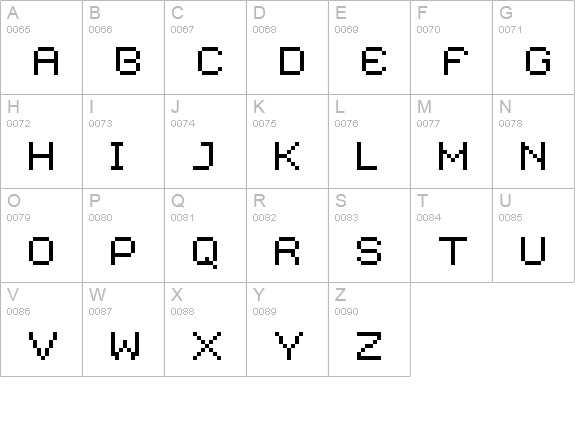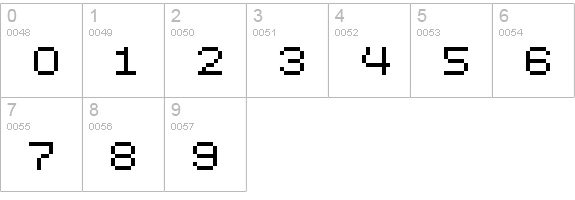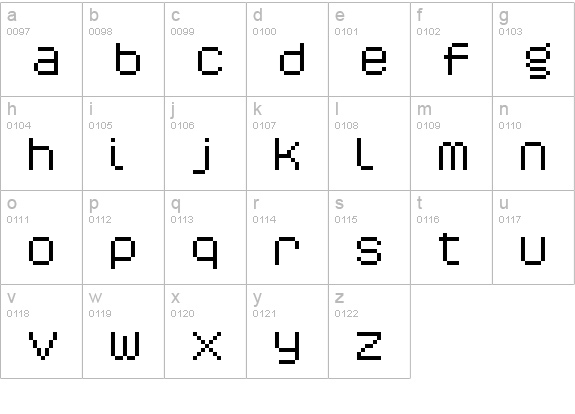
CALIPER-888XW is a sleek and modern font that exudes elegance and sophistication. Its clean lines and precise angles make it perfect for a wide range of design projects, from branding to editorial layouts. The font features a unique combination of sharp edges and rounded corners, creating a harmonious balance that catches the eye. What sets CALIPER-888XW apart is its versatility - it can be used for both headlines and body text, making it a practical choice for any design application. Whether you're creating a logo, poster, website, or packaging design, CALIPER-888XW will elevate your project with its contemporary aesthetic. The best part? CALIPER-888XW is completely free to download at FontsMarket.com, allowing you to access this high-quality font without breaking the bank. Don't miss out on the opportunity to enhance your designs with the stylish and sophisticated CALIPER-888XW font today!